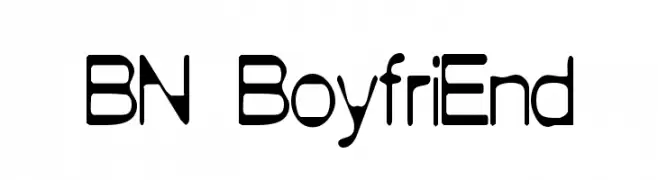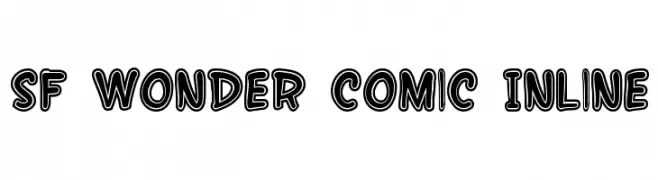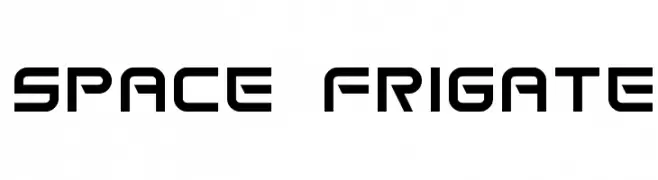
A playful, vampire-themed decorative font with bold, sans-serif letters encased in cartoonish vampire figures.
A dynamic italic font with smooth, flowing curves and a modern, expressive style.
An elegant serif font with a blend of classic and modern elements, featuring unique curves and flourishes.
A bold, comic-inspired font with outlined, playful characters.
A modern, playful font with bold uppercase and rounded lowercase letters.
A dripping, horror-themed font with a melting appearance.
A futuristic, geometric font with bold, angular letterforms and consistent stroke width.